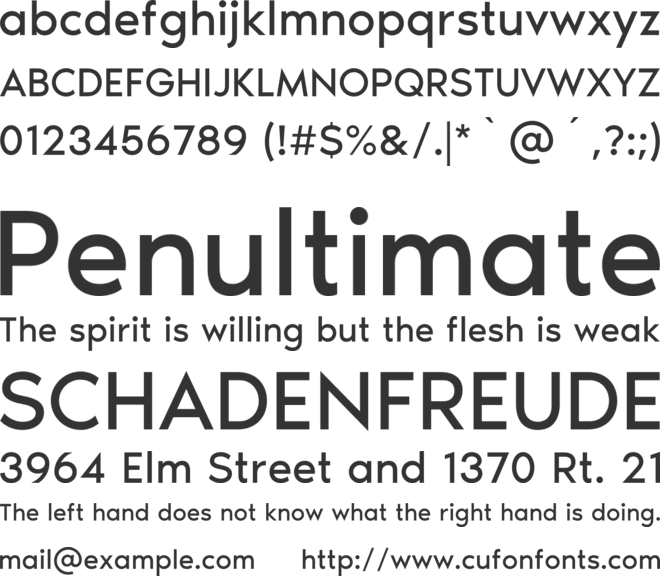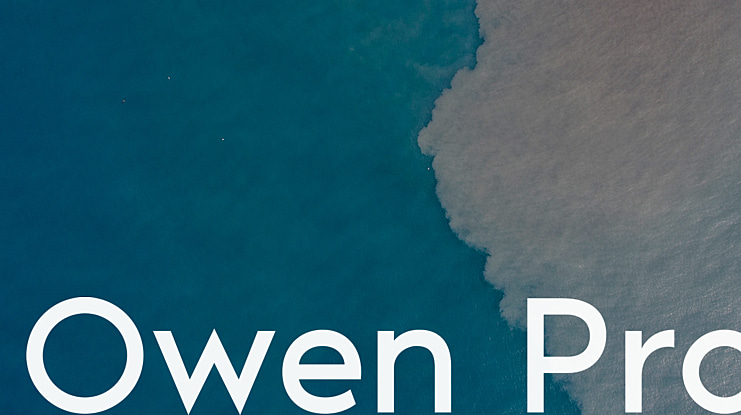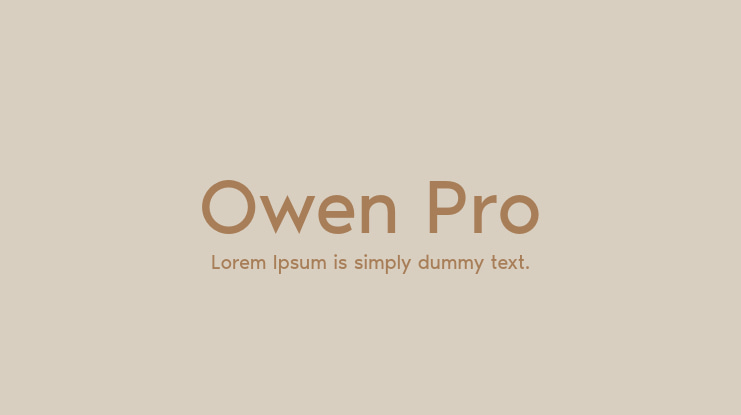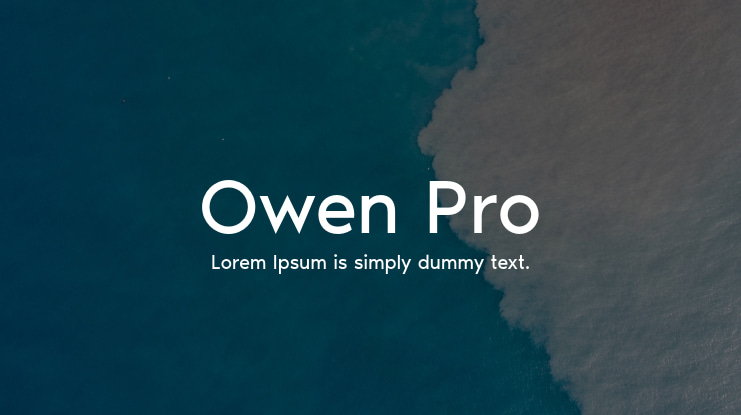
Owen Pro Font Family
If youโ€™re looking for an free sans serif font to attract your audiences or customers then weโ€™ve got the font for you! Owen is a 12-font sans serif font family with modern aesthetics influenced by early twentieth-century geometric styles. While having a geometric framework, each design has an organic personality with a touch of warmth.
Owen comes in a variety of weights, from light and graceful for small writing to highly heavy and masculine for huge display sizes.
Owen comes with a variety of Open Type features, including enhanced Latin, Cyrillic, and Greek language support.